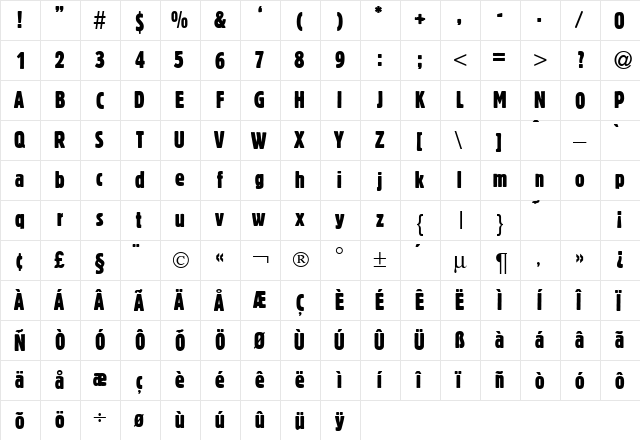
BlossumEConDB Normal
Design Context for BlossumEConDB Typeface
BlossumEConDB takes a measured approach to typography — its balanced proportions and neutral character make it a reliable workhorse for both digital and print work. The condensed width makes it efficient for tight spaces without sacrificing legibility.